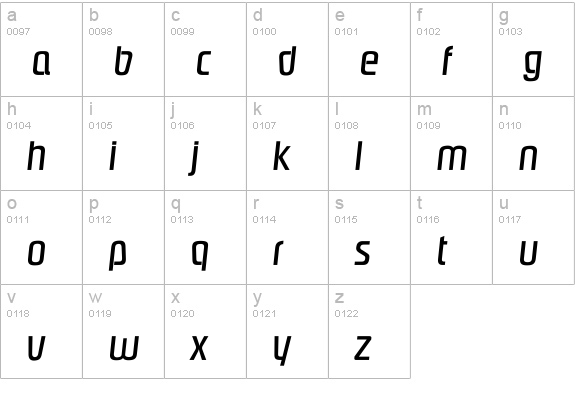
Ipasadena Medium is a balanced, medium-weight variant in the Ipasadena typeface family \xE2\x80\x94 well suited to sub-headlines, navigation, and balanced editorial work.
Introducing Ipasadena Medium, a sleek and modern font that exudes elegance and sophistication. Designed with precision and attention to detail, this typeface boasts a balanced mix of contemporary and classic elements, making it a versatile choice for a wide range of design projects. Ipasadena Medium is characterized by its clean and crisp letterforms, perfectly formed curves, and consistent stroke widths. It offers a harmonious blend of readability and style, making it suitable for both display purposes and body text. This font is the epitome of versatility, seamlessly adapting to various design contexts. Whether you're creating a professional logo, designing a sophisticated website, or crafting a captivating print advertisement, Ipasadena Medium will effortlessly elevate your project to new heights. One of the most enticing aspects of Ipasadena Medium is that it is freely available to download at FontsMarket.com. This means that you can enjoy this exceptional font without any cost, making it an ideal choice for designers on a budget or anyone looking to add a touch of elegance to their creations without breaking the bank. With its timeless appeal and the added bonus of being free, Ipasadena Medium is a must-have font for any designer or typographer. Don't miss out on the opportunity to enhance your designs with this remarkable typeface. Head over to FontsMarket.com today and experience the versatility and beauty of Ipasadena Medium for yourself!